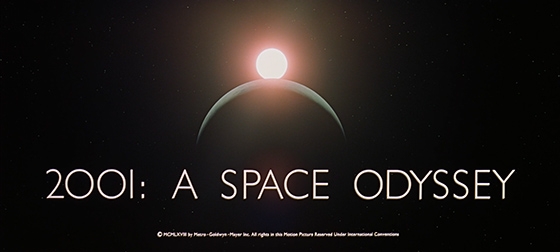
Fonts in Space
Typset in the Future is a new blog devoted to typography in sci-fi movies, and authored by Dave Addey, a Senior Writer at Apple. It’s a brillaint concept, because as Addey points out, plenty of font geeks are also sci-fi geeks.
The first post is a fun frame-by-frame analysis of the fonts used in 2001: A Space Odyssey.
Or should I say, “2OO1” as one of the juicer revelations is that those are actually Gill Sans capital Os in between the 2 and the 1. And that’s just one of many cool finds. After reading the post, you may never look at Eurostile Bold Extended, Gill Sans, or Futura quite the same way again.